Colon
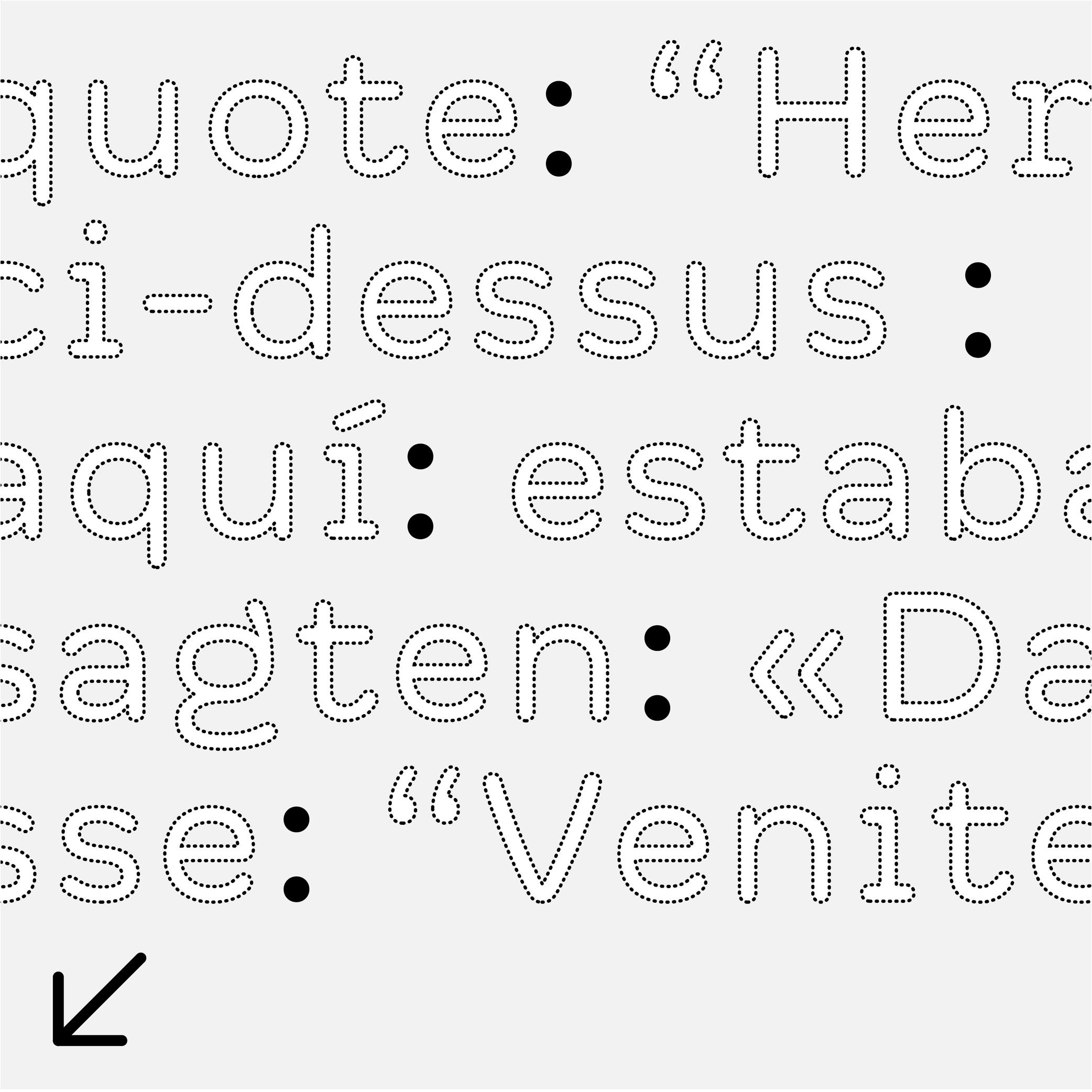
FUNCTION
A colon indicates the beginning of a quote, a list, a ratio within numbers, or it can be used to indicate time in between two numbers.
HISTORY
The colon has been used in various languages for various types of uses. Scribes during Europe’s Middle Ages began using it as we do nowadays.
DESIGN
The colon is built with two periods on top of each other. The top one is placed just below the x-height and the bottom one sits on the baseline.
TYPOGRAPHIC RULES
There is no space before the colon in a sentence, and is followed by a space (U+00A0). But this rule doesn’t apply to every Latin language!
UNICODE
COLON: U+003A